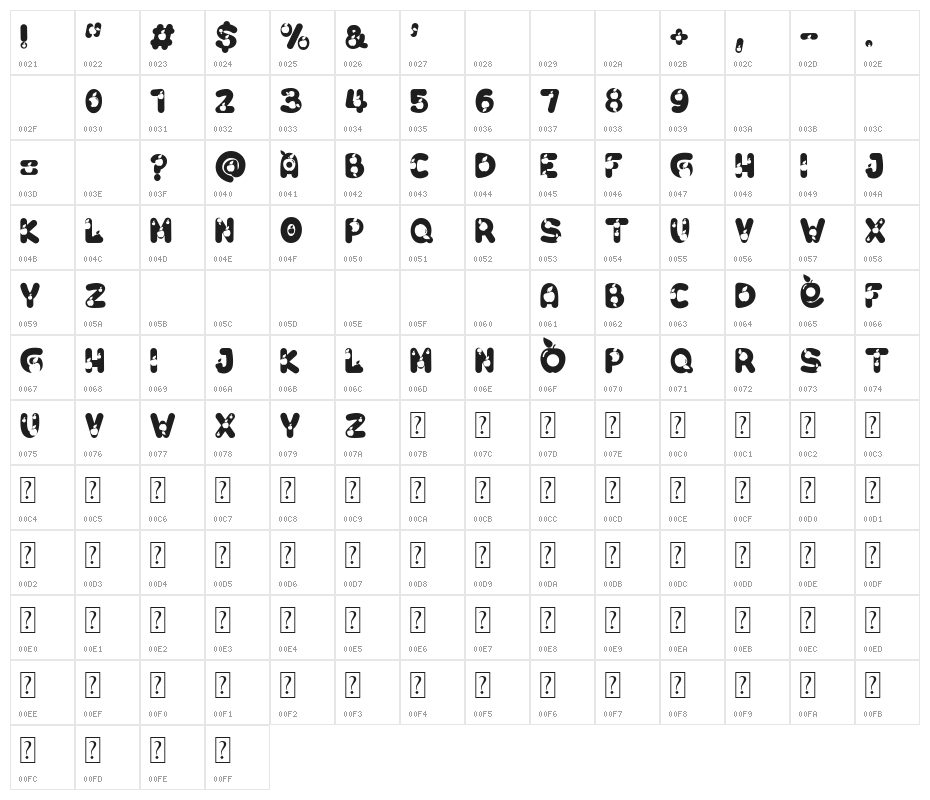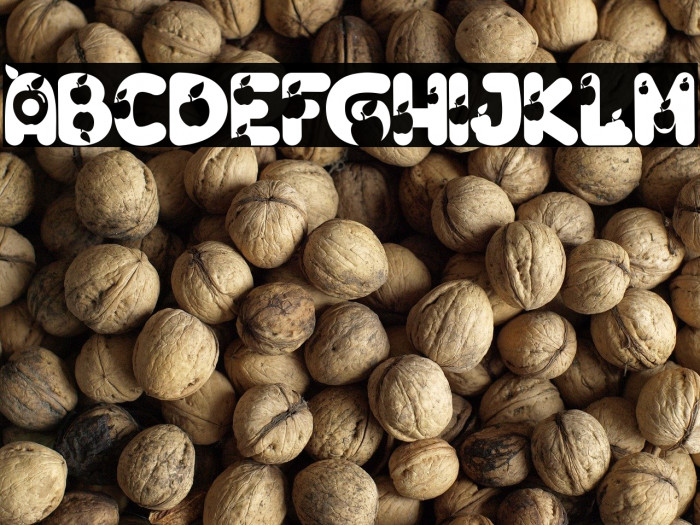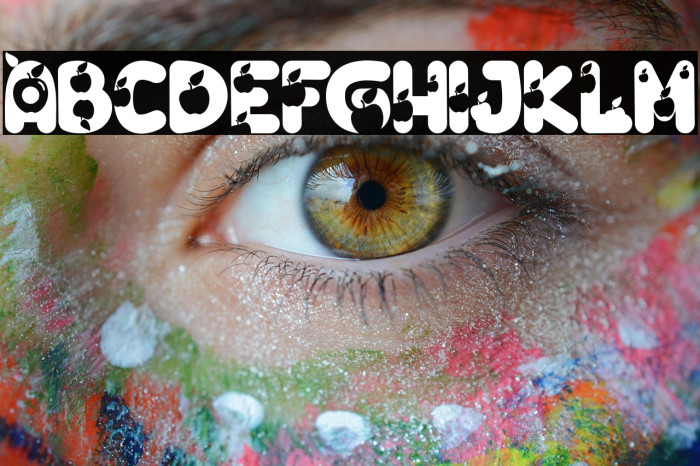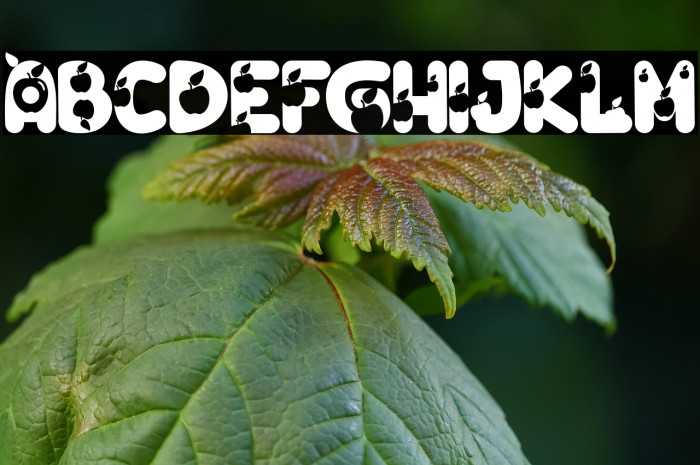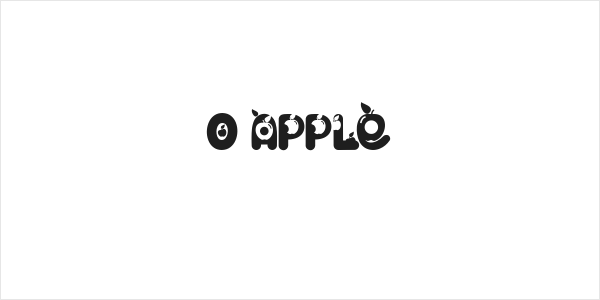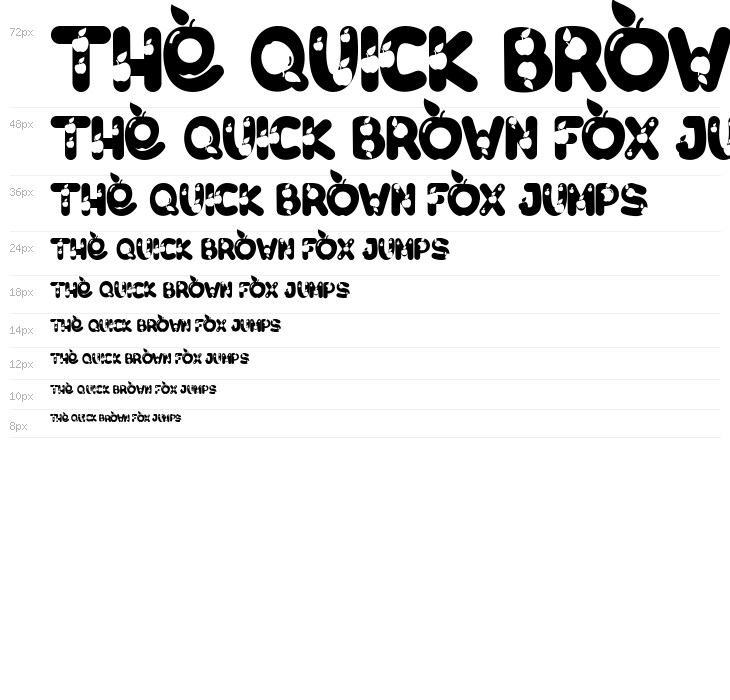
O Apple Font
O Apple Description
This playful and bold font features a unique design with apple motifs integrated into each character. The letters are rounded and thick, creating a sense of fun and whimsy. The apples are cleverly placed, adding a decorative touch without overwhelming the readability. This font is perfect for projects that require a touch of creativity and playfulness. The characters are evenly spaced, ensuring clarity and balance. The overall style is modern and decorative, making it suitable for eye-catching designs.
| Proposed Projects | Ideal for children's books, playful branding, food-related designs, and creative posters. |